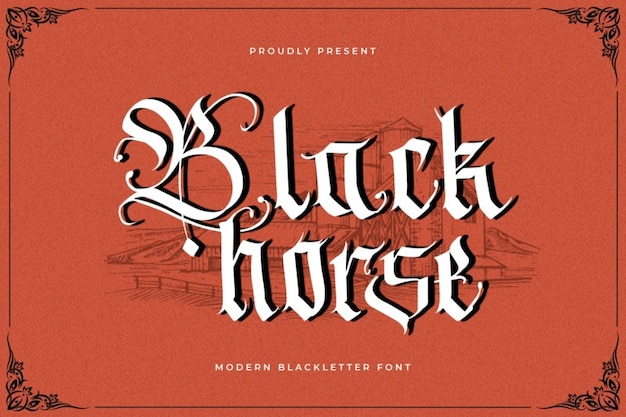
Blackhorse Font
Blackhorse is a striking blackletter font with Victorian influences, blending vintage charm and old English calligraphy. Its ornate, intricate design evokes a sense of classic elegance and timeless sophistication, perfect for historical projects, formal invitations, or vintage branding. Blackhorse brings a regal, antique feel with every stroke, ideal for designs seeking a bold yet refined aesthetic.